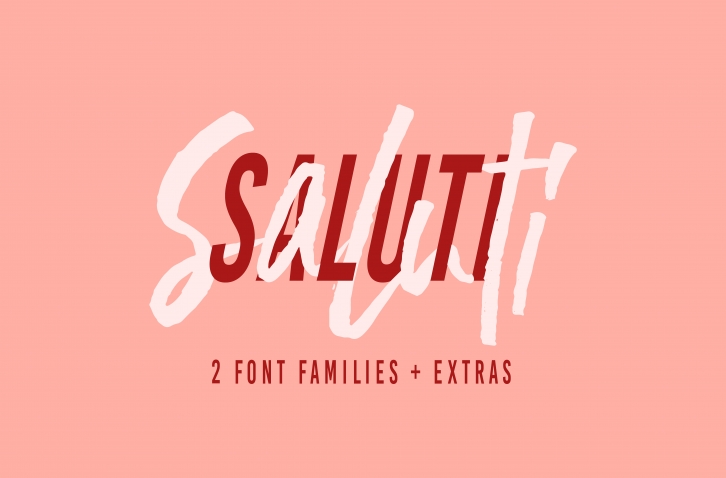
"Saluti" is a sans serif and script font duo that comes in 14 different variations.
The clean, organized look of "Saluti" and the fresh, handwritten look of "Saluti Script".
EXTRA: 10 PREMADE LOGO TEMPLATES